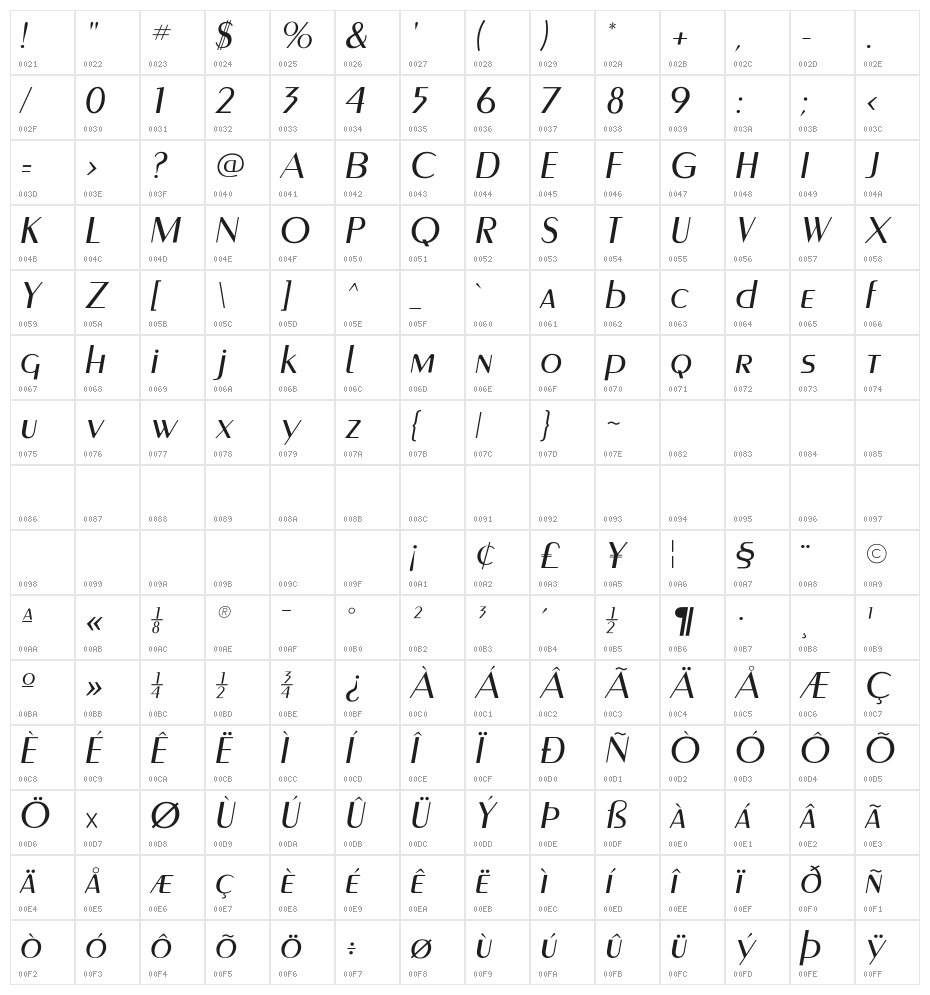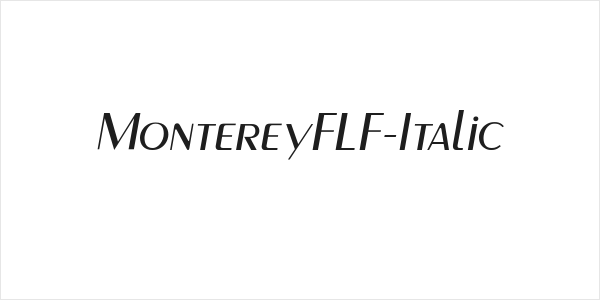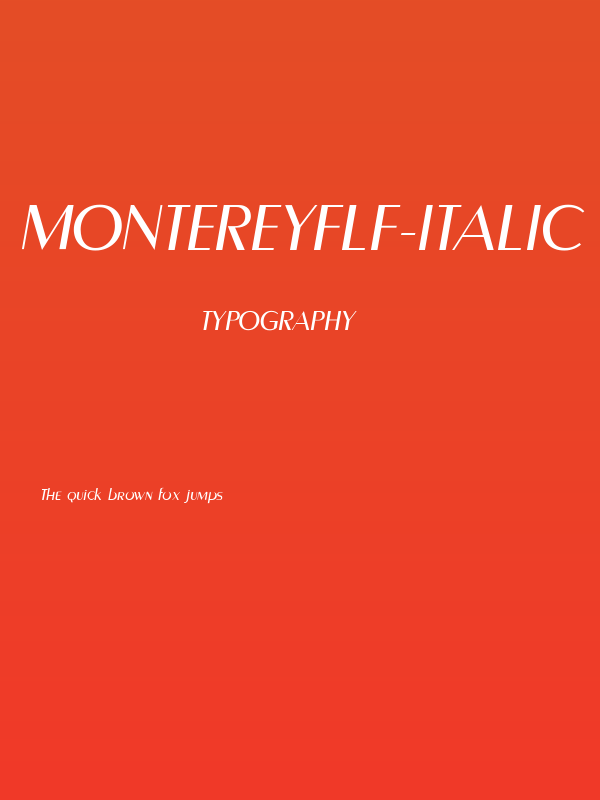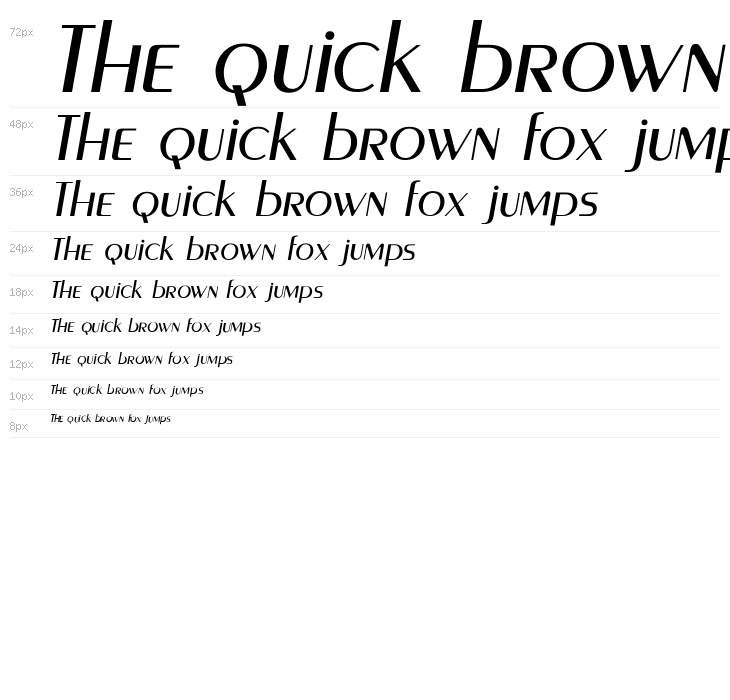
MontereyFLF-Italic Font
MontereyFLF-Italic Description
This font features a sleek, italicized design with a modern flair. The characters are elegantly slanted, giving a sense of motion and dynamism. The uppercase letters are tall and slightly condensed, while the lowercase letters maintain a consistent flow with a slight curve, adding to the overall elegance. The numerals are distinct and easy to read, with a uniform slant that matches the alphabetic characters. Special characters are well-integrated, maintaining the same stylistic slant and modern aesthetic. The font's clean lines and smooth curves make it suitable for a variety of design applications.
| Use Case | Headlines, Logos, Editorial Design |
| Proposed Projects | Ideal for branding, advertising, and editorial design where a modern and elegant touch is desired. |